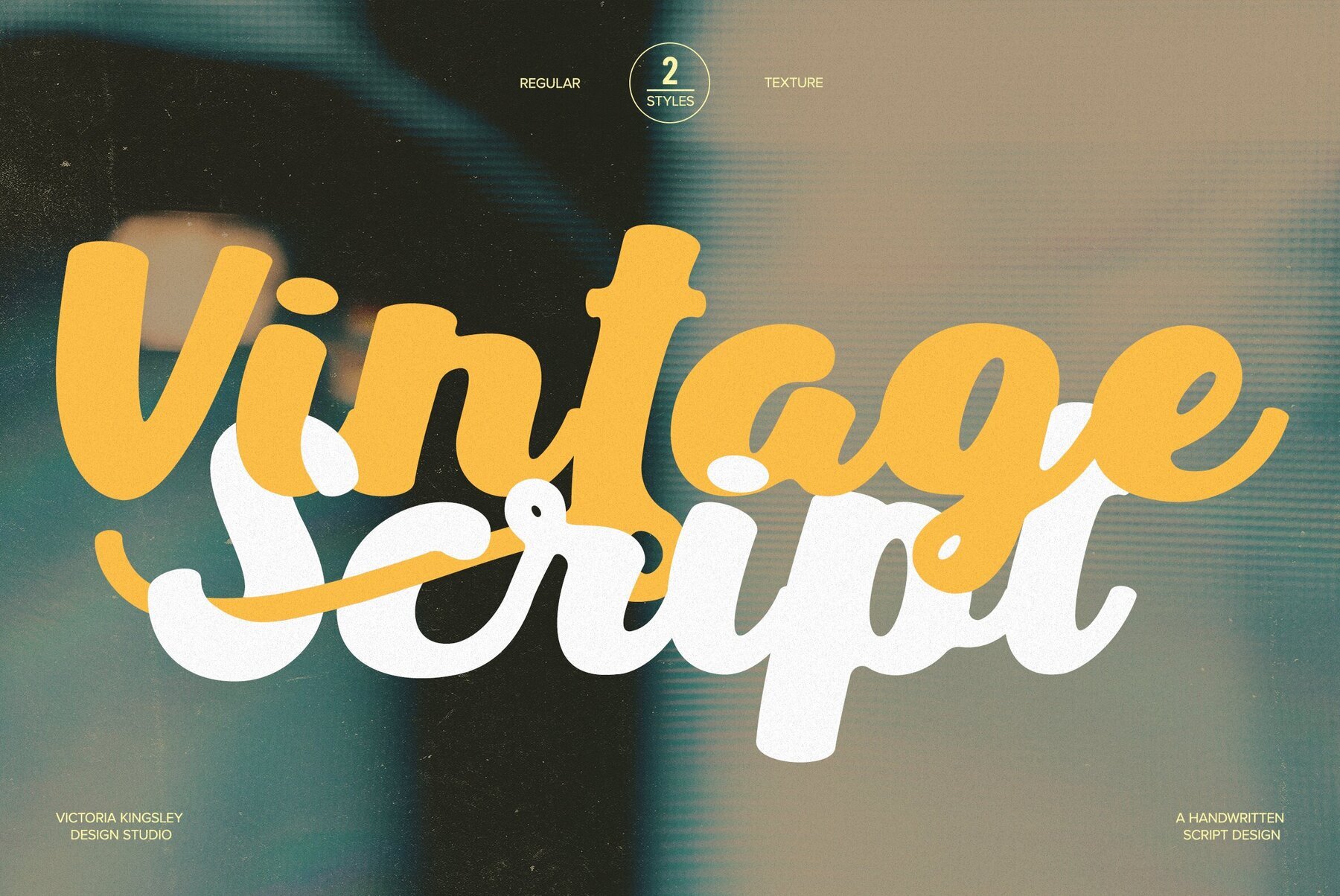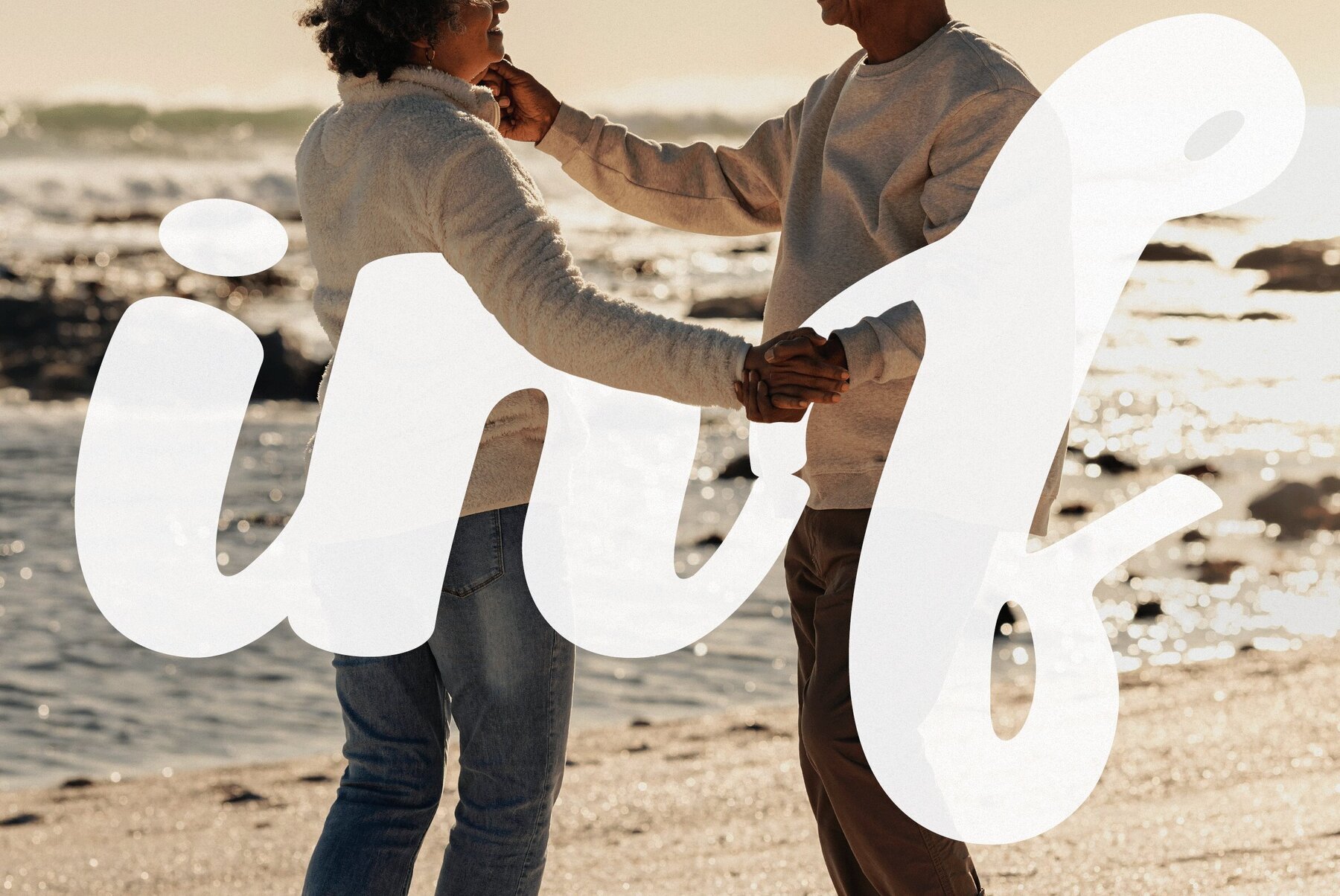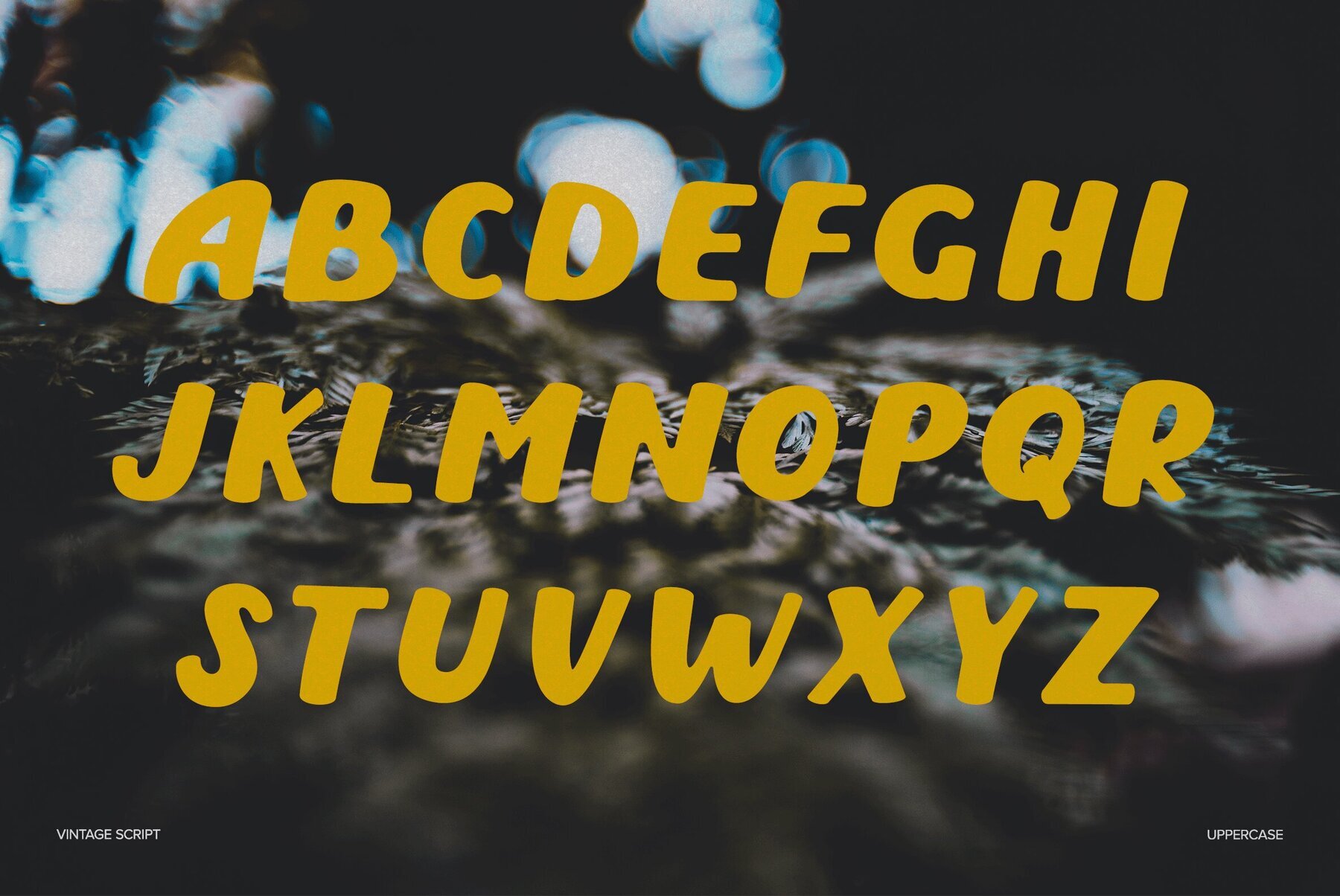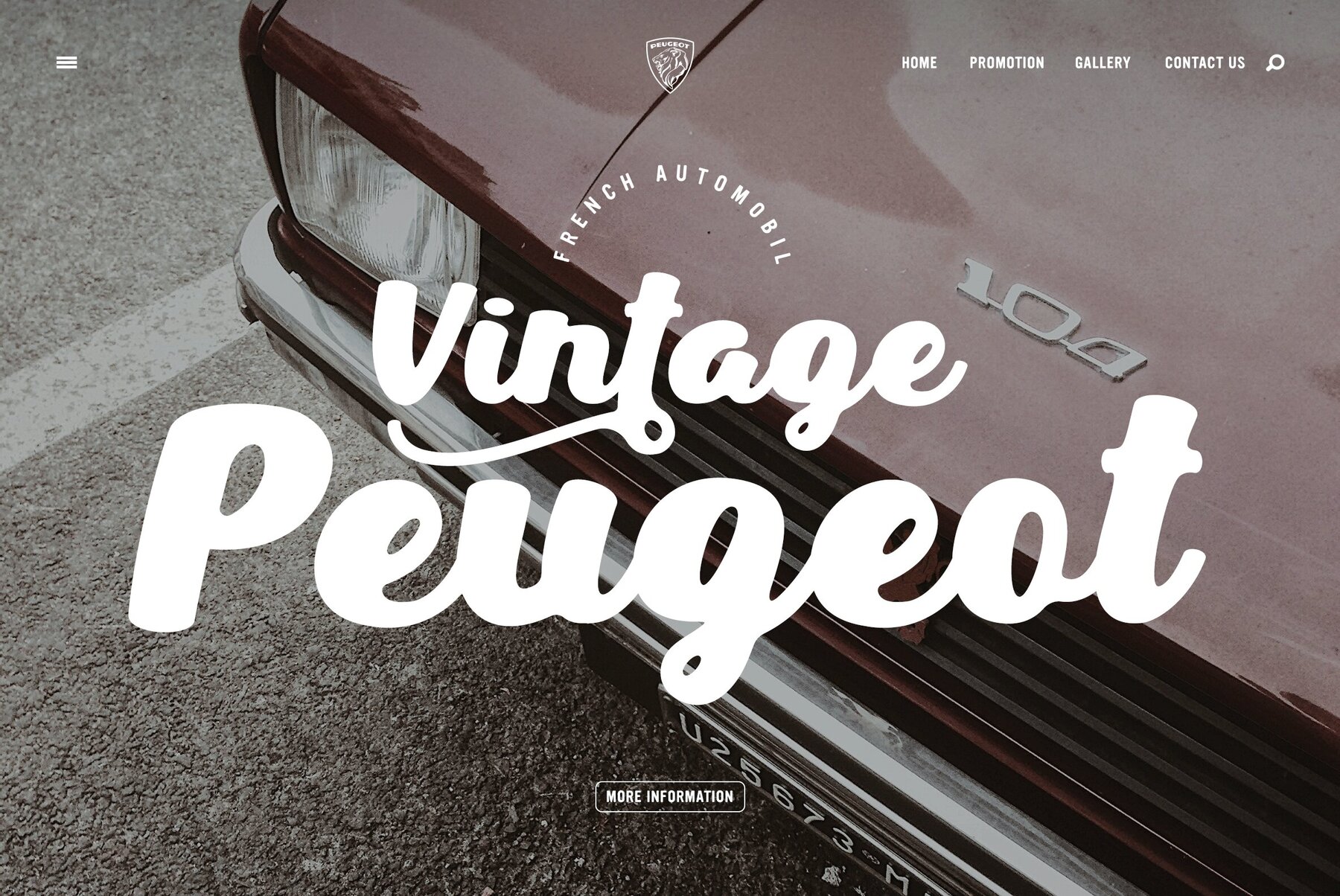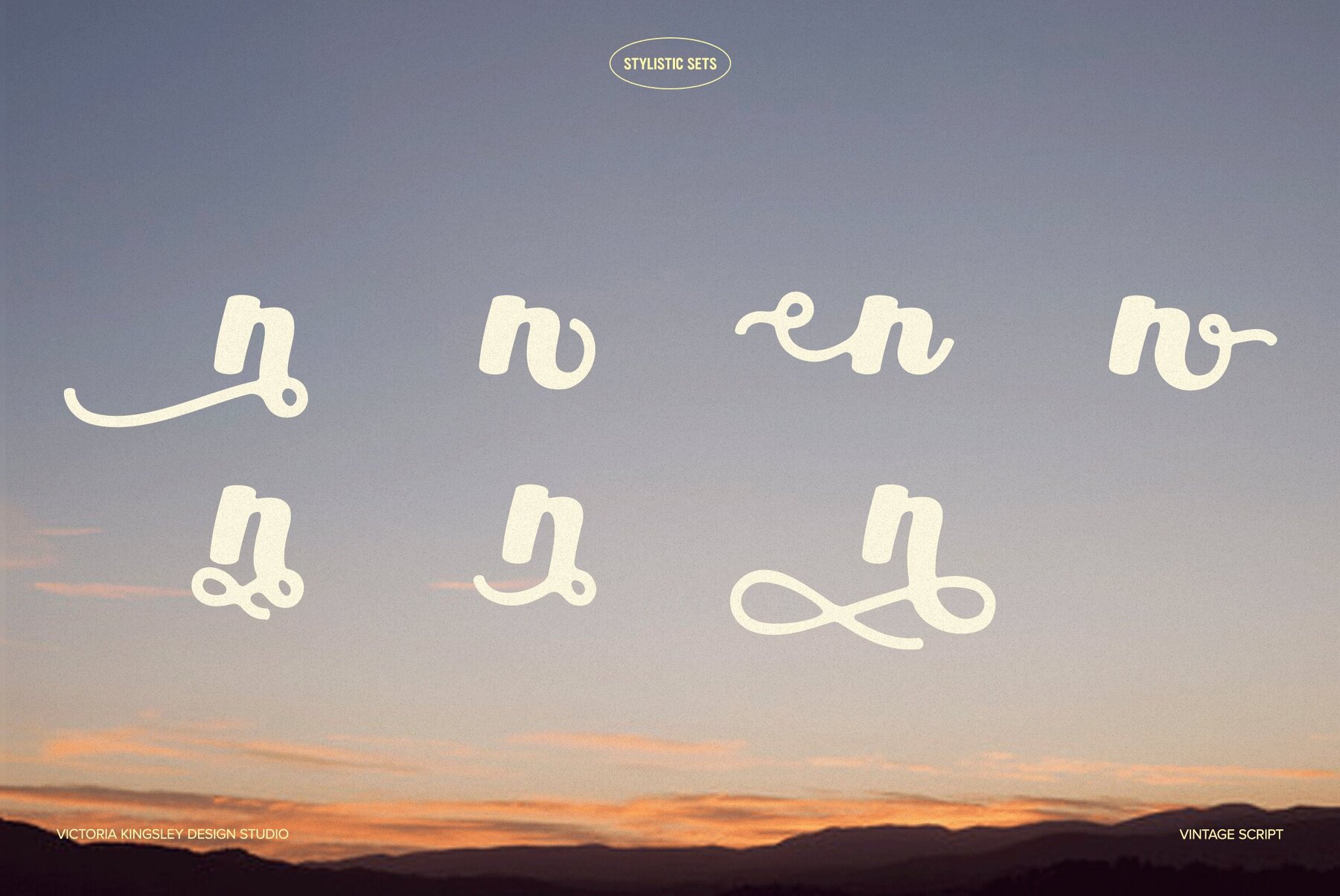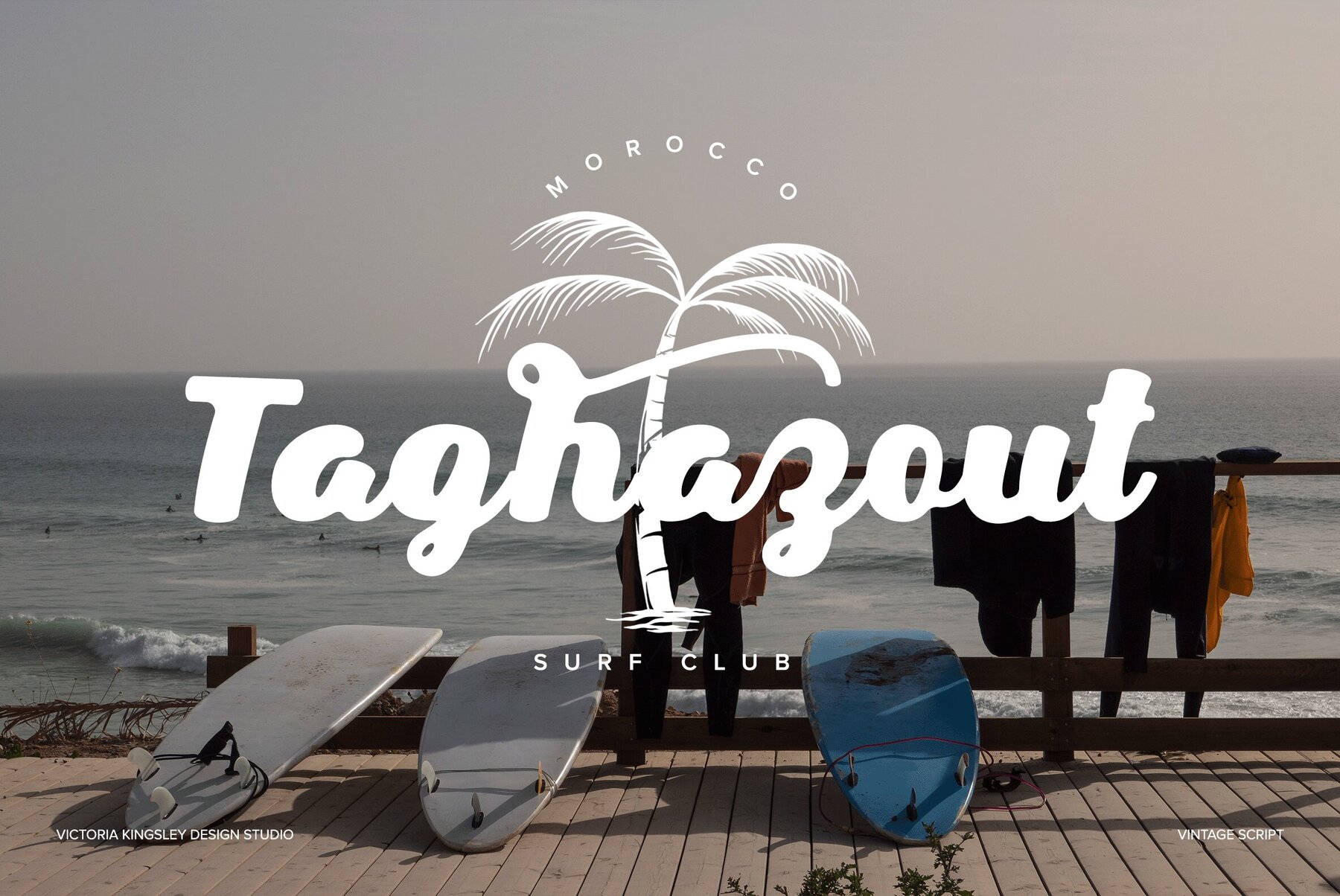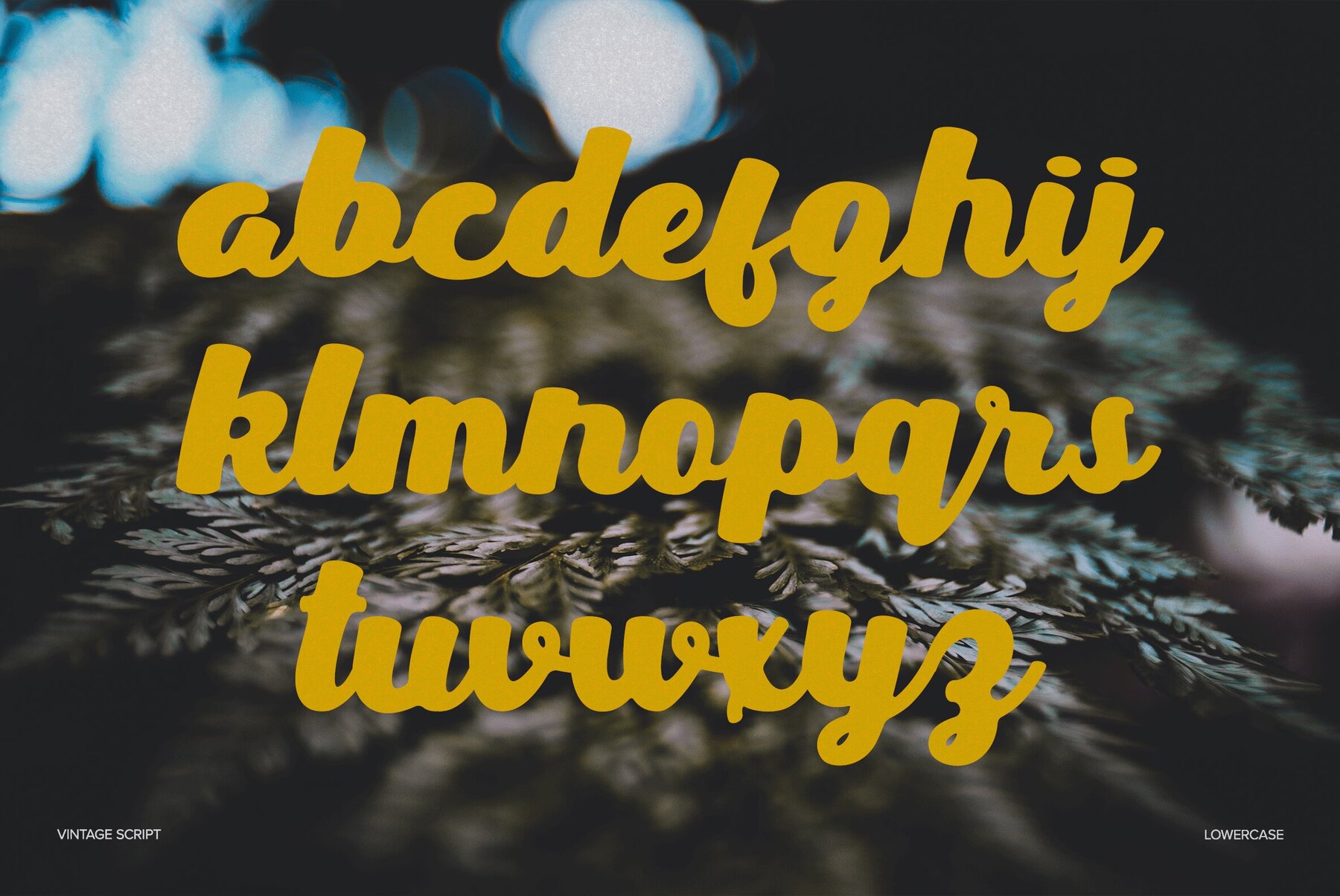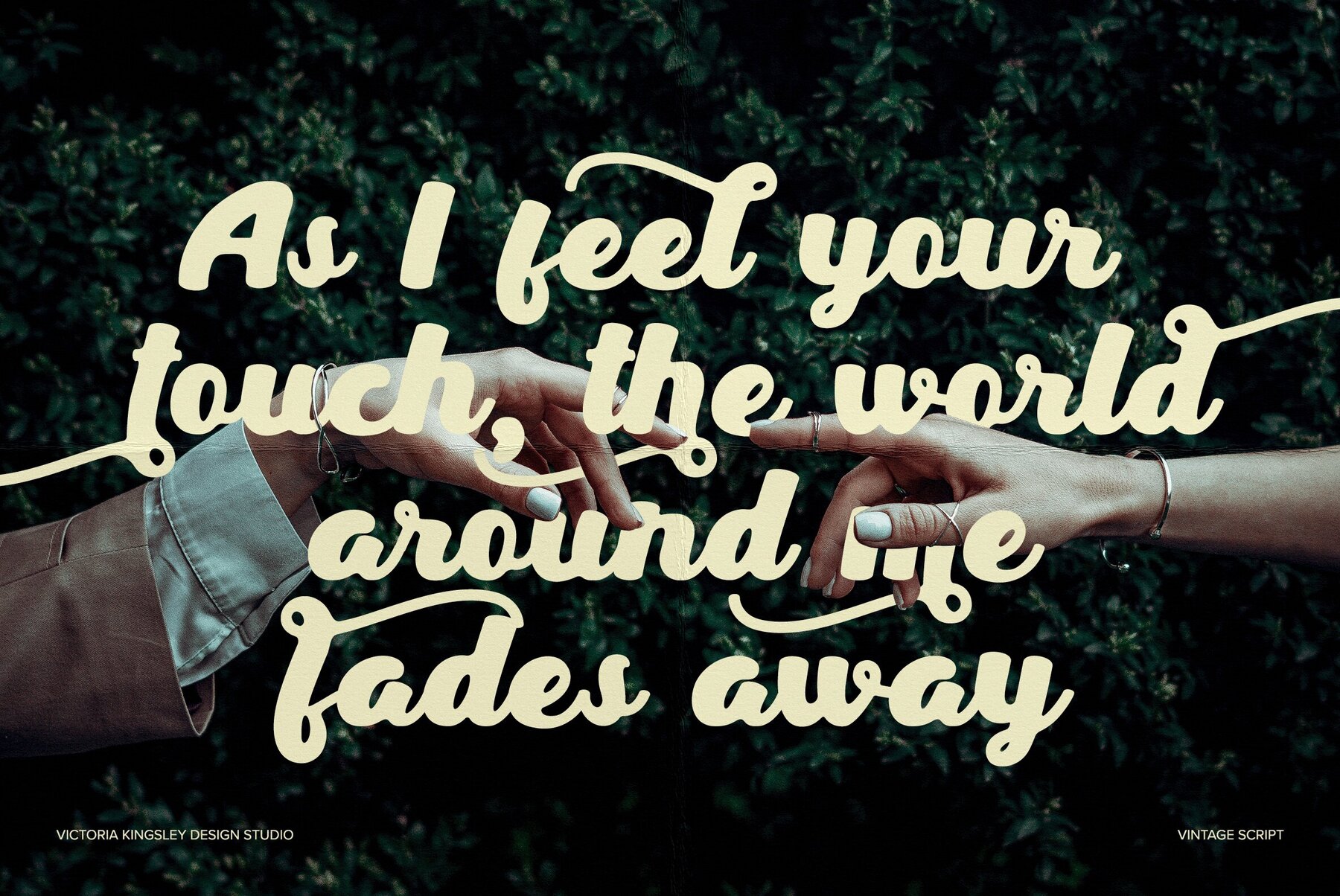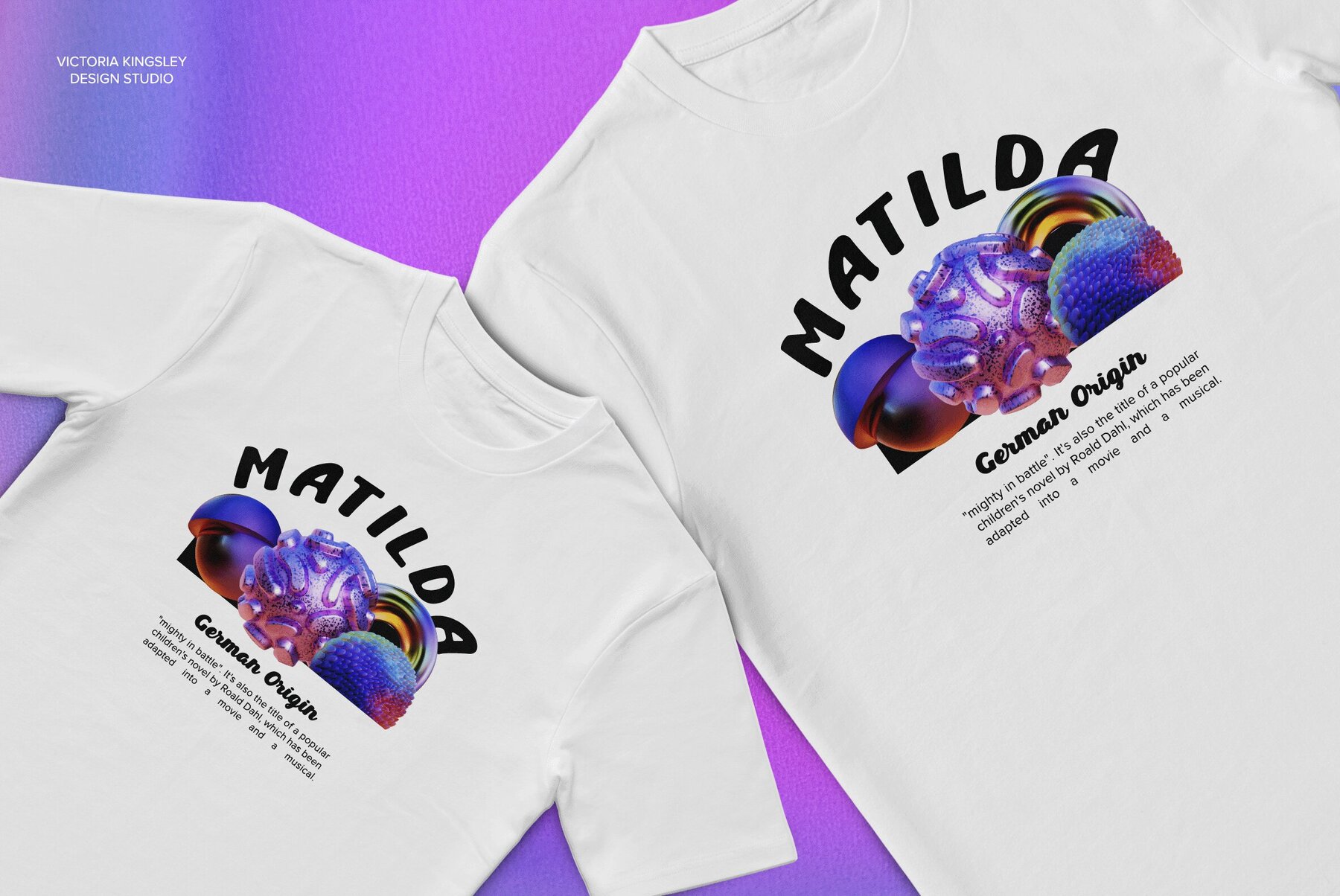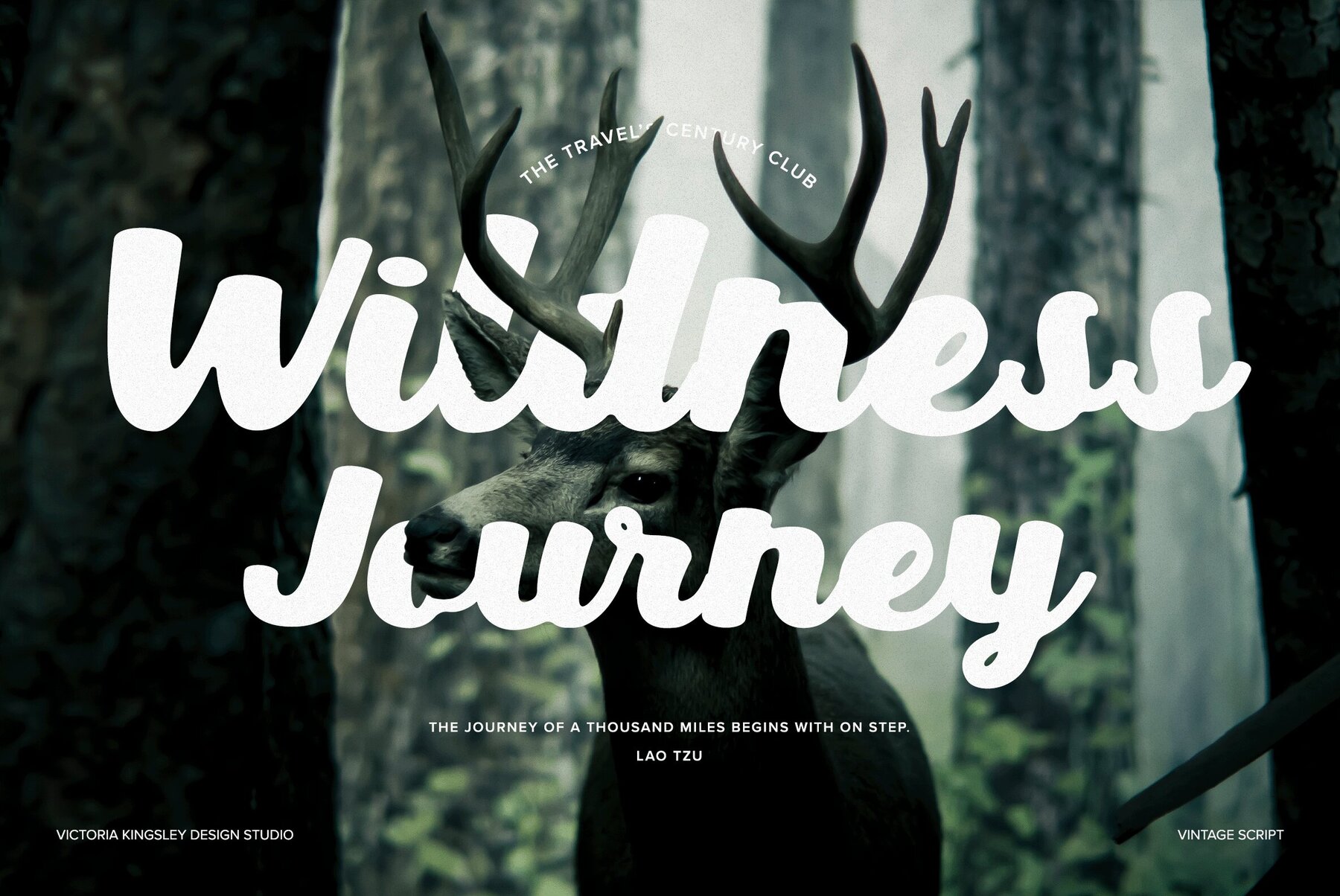
Vintage Script Font
Take a step back in time with Vintage Script – a dynamic, retro-style font designed to add character and nostalgia to any creative project. Perfect for vintage Americana themed designs or any informal project, Vintage Script has been carefully crafted to bring timeless charm to any design task. Classic, quirky and endlessly endearing, this versatile typeface boasts over 400 glyphs that are perfect for unique and stylized messages. With an eye-catching script style and a range of old-fashioned vibes, it's sure to transport your artwork back to the good old days. Plus, it's easy to use and is ideal for graphic designers and branding studios who want their projects to stand out with authentic style. So why not take the plunge into yesteryear with Vintage Script? Additional products used for slideshow images: